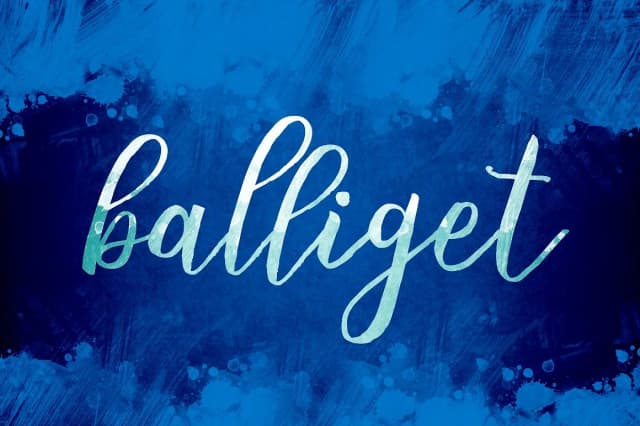
1 / 9About Shilla Font
Shilla Font by typeholish is a gracefully flowing script typeface that captures the authenticity of hand-drawn letterforms while delivering reliable performance across modern design platforms. The typeface balances organic, naturally-formed strokes with the legibility required for professional applications, whether you're designing something intimate or tackling larger multi-page projects that demand visual consistency. This script excels in wedding invitation suites, where its fluid letterforms convey ceremony and personal touch with understated sophistication. It's equally at home on artisan food packaging, personalized greeting card collections, and boutique beauty product branding, contexts where an authentic handwritten voice strengthens customer connection and builds trust. The font's readable curves ensure strong, consistent performance across different scales, from detailed product labels and hand-lettered signage to headline work in editorial design and social media graphics. Beyond traditional contexts, the typeface works beautifully for custom craft applications and vinyl cutting projects, offering makers and small business owners a sophisticated foundation for building distinctive brand identities. Its approachable elegance suits logo concept development, stationery system design, and any creative direction that benefits from a personal, carefully-crafted aesthetic without sacrificing clarity or professionalism in practice. Access Shilla Font on Creative Fabrica to bring handwritten character and warmth to your upcoming creative work.
Shilla Font is a script font that shines as a display or heading face. Pair it with a clean sans-serif or serif font for body text β the contrast creates a clear hierarchy while the two styles stay balanced and easy to read.
Shilla Font
by typeholish